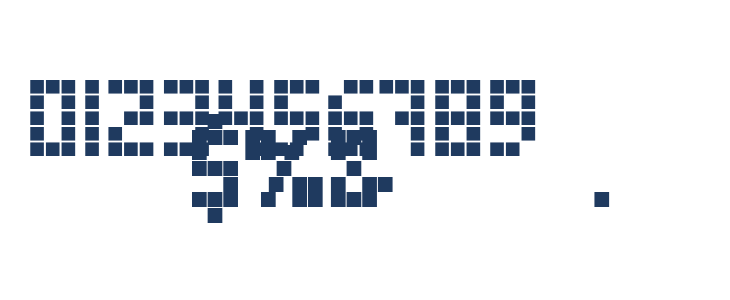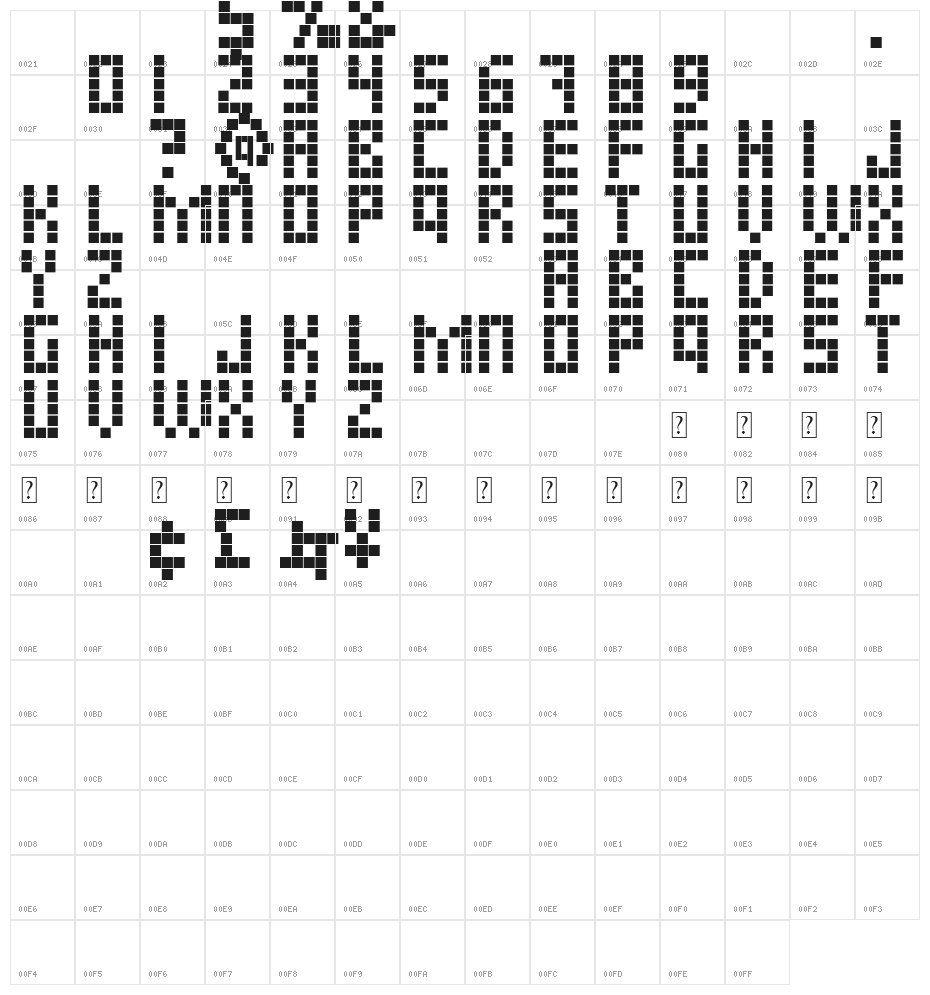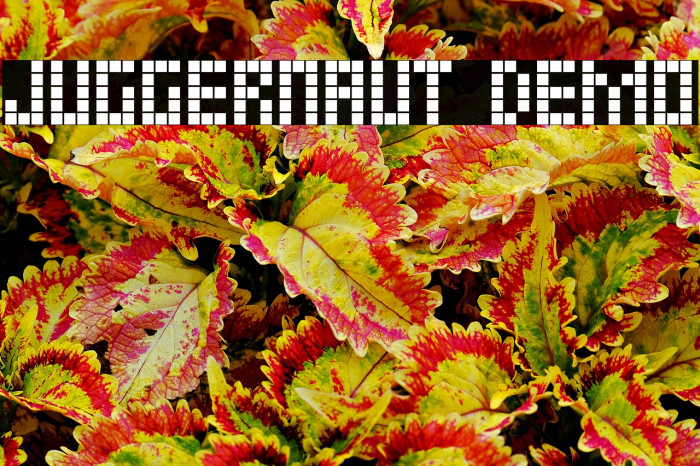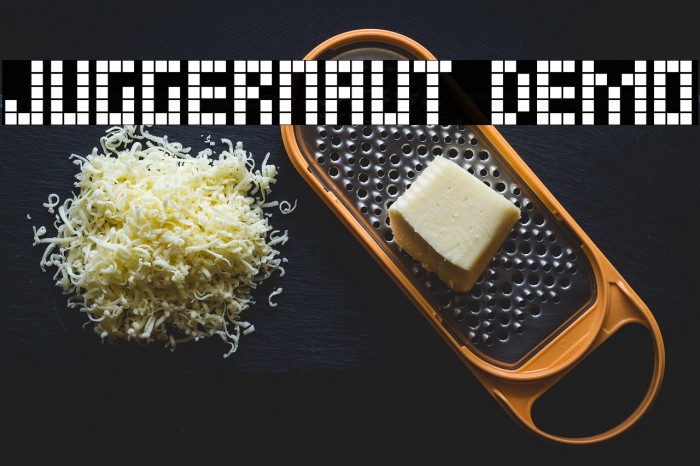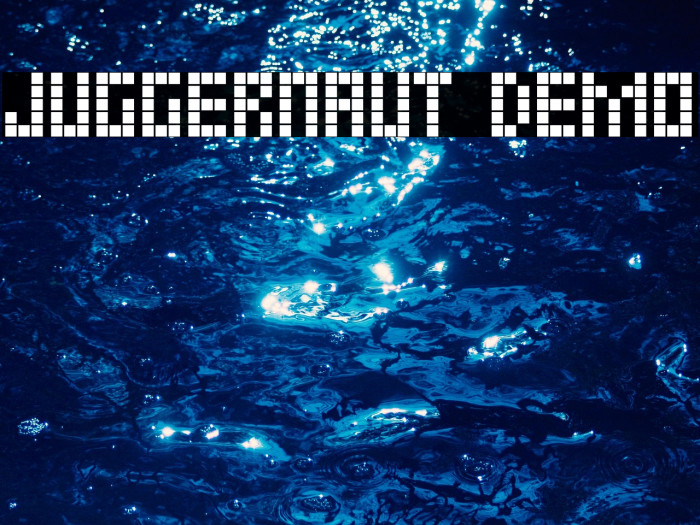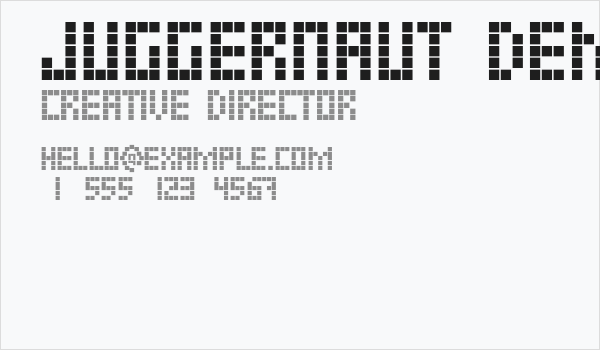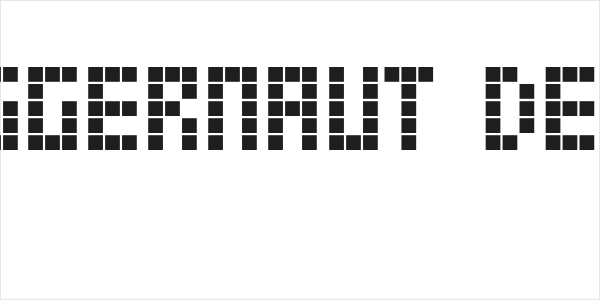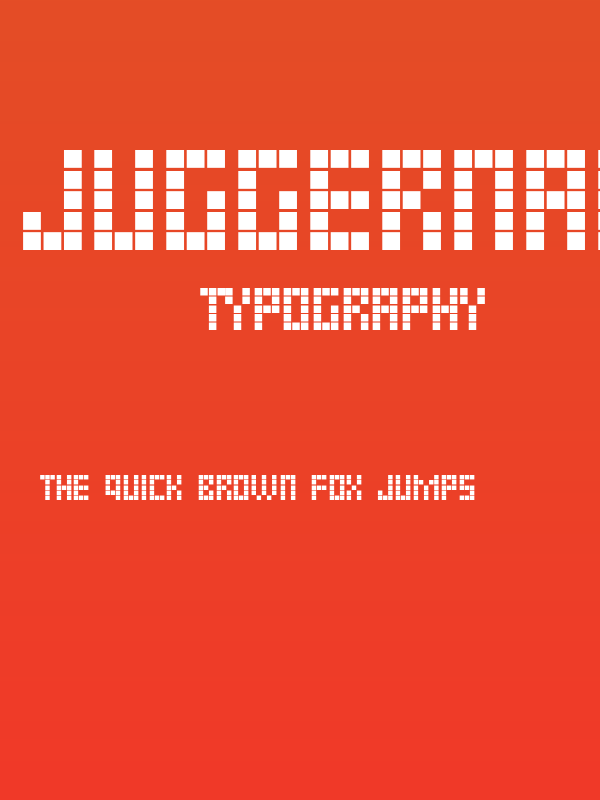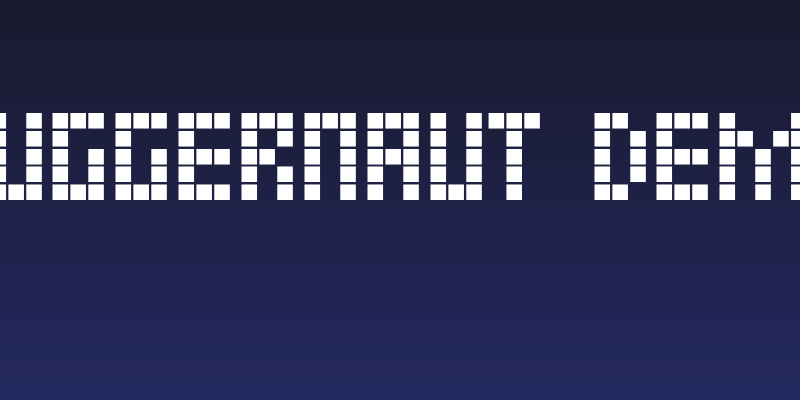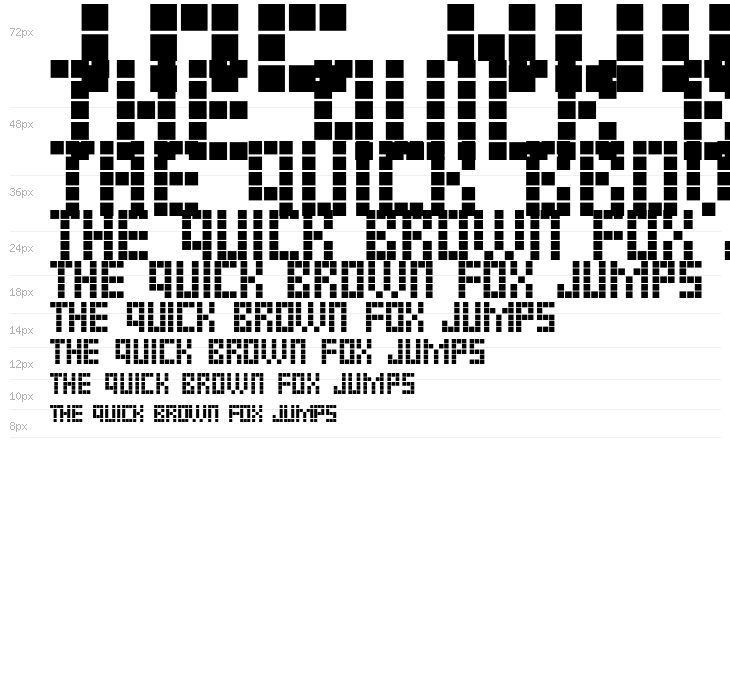
JUGGERNAUT demo Font
JUGGERNAUT demo Description
This font features a bold, pixelated design that is reminiscent of early digital displays and retro video game aesthetics. Each character is composed of a grid of squares, giving it a blocky and geometric appearance. The uniformity in the design creates a cohesive look across all characters, making it highly legible despite its unconventional style. The font's distinct, modular structure is ideal for projects that aim to evoke a sense of nostalgia or a digital, tech-inspired theme. Its unique style makes it stand out, ensuring that any text set in this font will capture attention.
Overall StyleRetro, Digital
Proposed ProjectsIdeal for video game graphics, tech-themed posters, digital art projects, and retro-inspired branding.